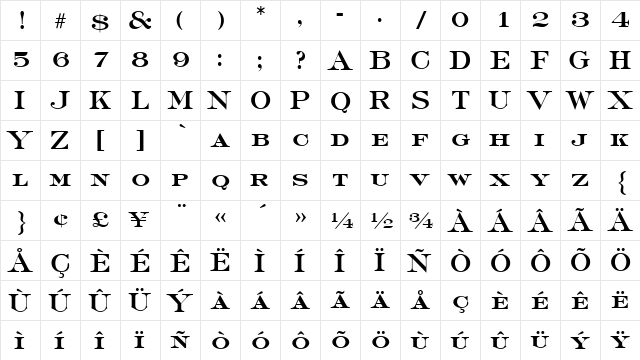
ATSackersRoman Regular
Design Context for ATSackersRoman Typeface
ATSackersRoman is a composed and adaptable typeface that performs quietly and consistently across a wide range of design contexts.
Pro Tip: Use ATSackersRoman in both headline and body roles to test its range before committing to a single application.